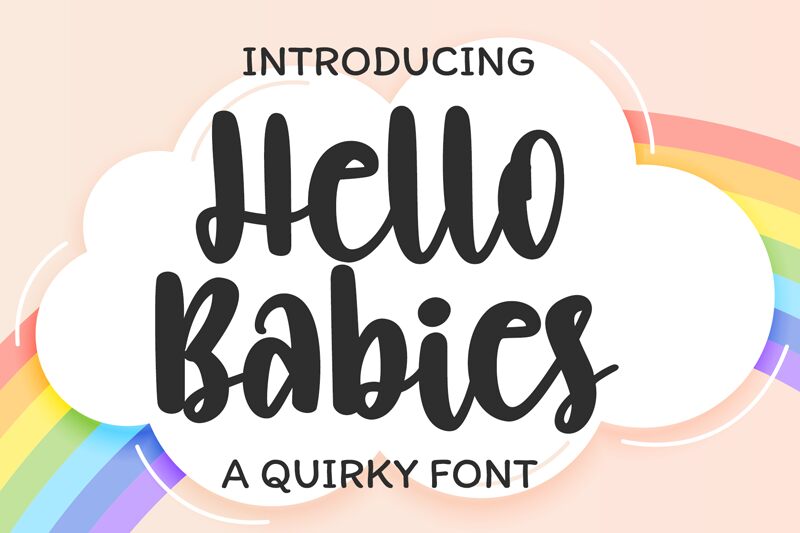
Hello Babies
Hello Babies is a charismatic brush font designed by Bearytype, guaranteed to make your projects stand out from the rest. With its extra-bold weight and semi-condensed width, this font is perfect for creating headlines, posters, logos, and packaging designs that command attention. The playful brush style of Hello Babies adds a touch of whimsy to any project it's used in. Whether you're designing a children's book cover or creating branding for a quirky cafe, Hello Babies is the versatile typeface you need. Say hello to your new favorite font!